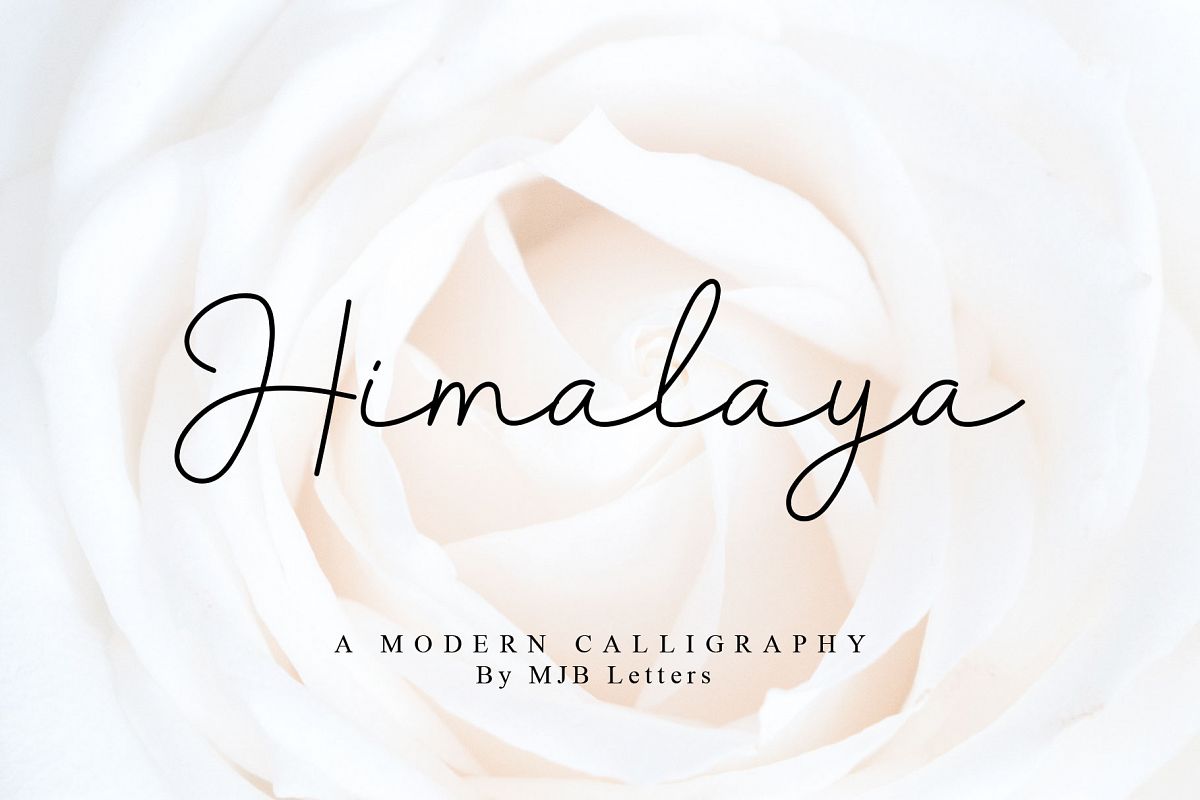
Himalaya Modern Calligraphy
Himalaya is handwritten fonts that are made with extreme care to maximize natural and elegant shapes with a classic and luxurious touch that will give an attractive impression on every design
Himalaya Modern Calligraphy